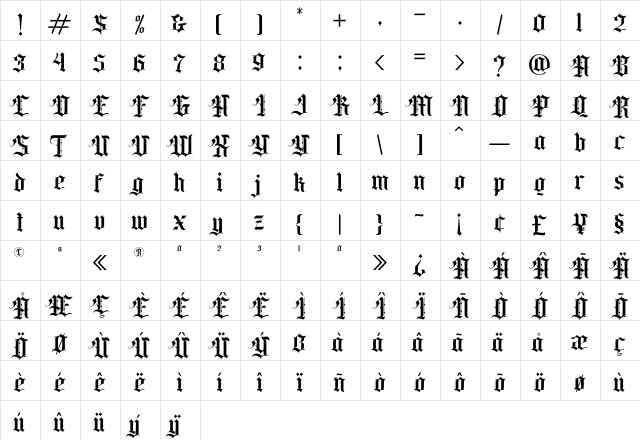
Classic rock band Regular
Design Context for Classic rock band Typeface
Classic rock band has the warm character of retro typography — evoking diners, record sleeves, and the golden age of print advertising.
Font Pairing: Combine Classic rock band with a simple slab or neutral sans — period-accurate companions reinforce the vintage feel without competing for attention.
Pro Tip: Lean into Classic rock band's period character by pairing it with aged paper textures, muted colour palettes, and vintage illustration styles.